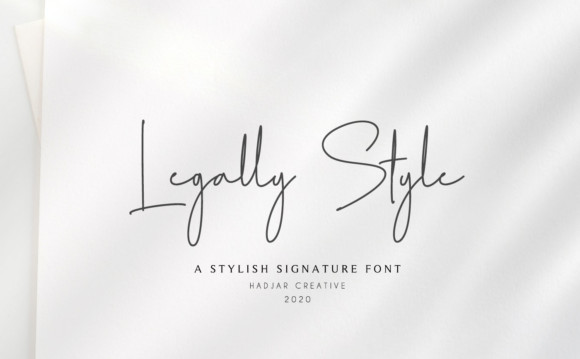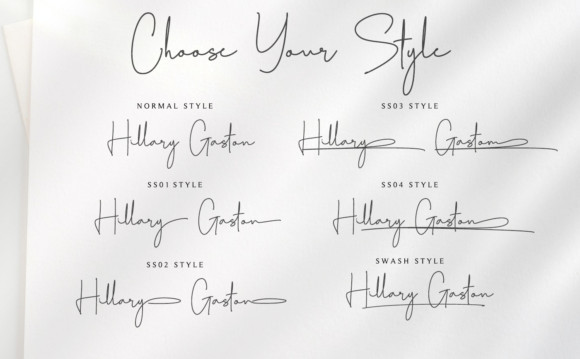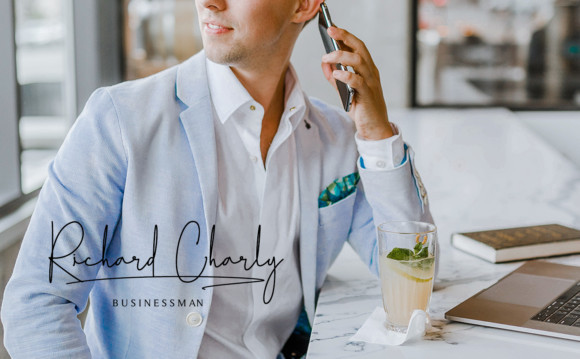
Legally Style Font
Legally Style FontLegally Style is a stylish and delicate handwritten font. It has a clean, thin and smooth vibe and it will be a hit for any design that you want to add it to.